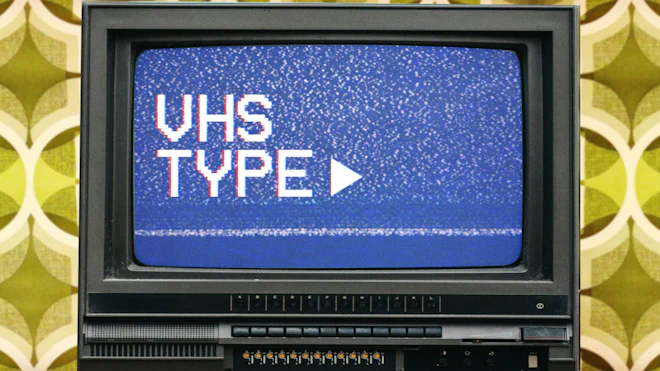
This stock motion graphics video pack includes 52 different clips of VHS a–z letters, 0–9 numbers, special symbols, and media icons on a transparent alpha channel.